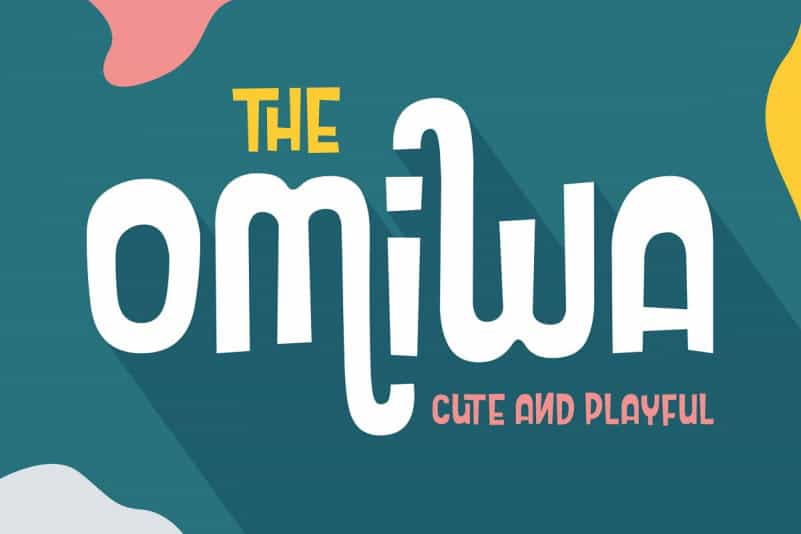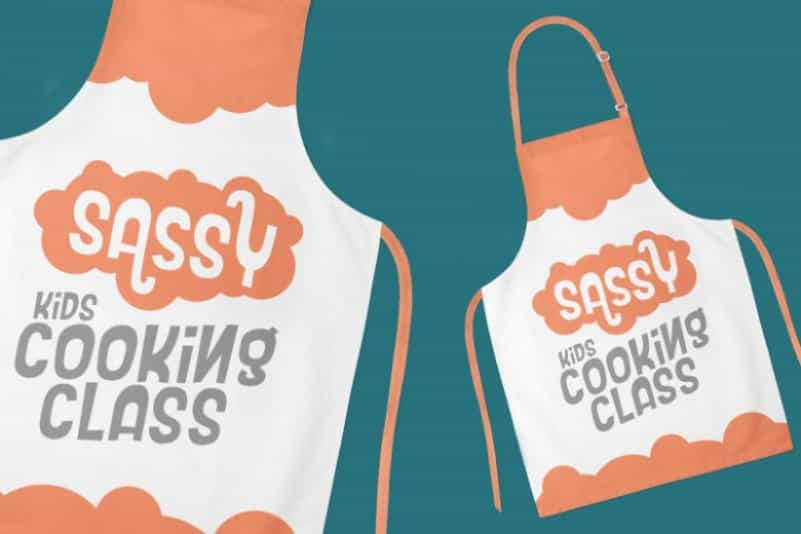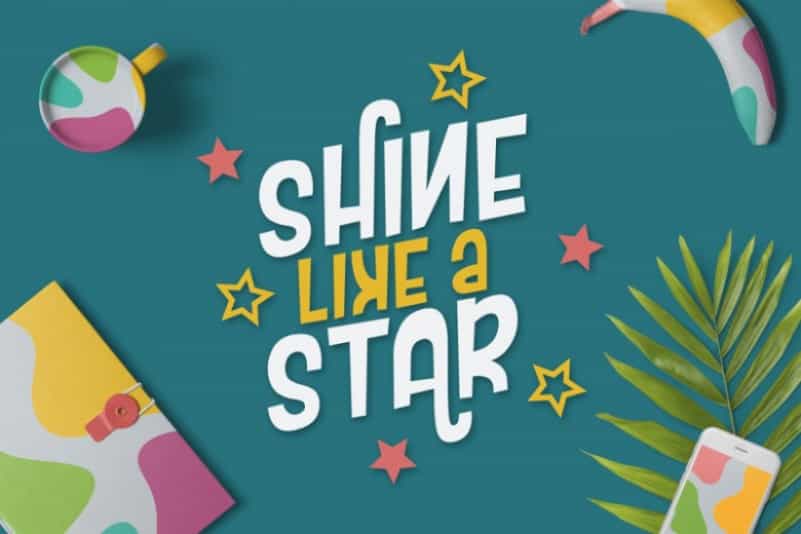
Say Hi to Introducing Omiwa Cute And Playful Font. The Omiwa is a cute and playful font with a unique character; this font is perfect for all design purposes. Using this alternate, and ligature for unique ways marking is perfect for your design!